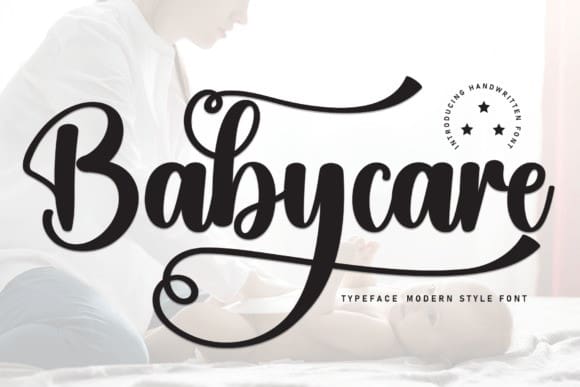
Babycare Script Font
Babycare Script Font is an exquisite handwritten font, masterfully designed to become a true favorite. It maintains its classy calligraphic influences while feeling contemporary and fresh. Fall in love with it and bring your projects to the highest levels